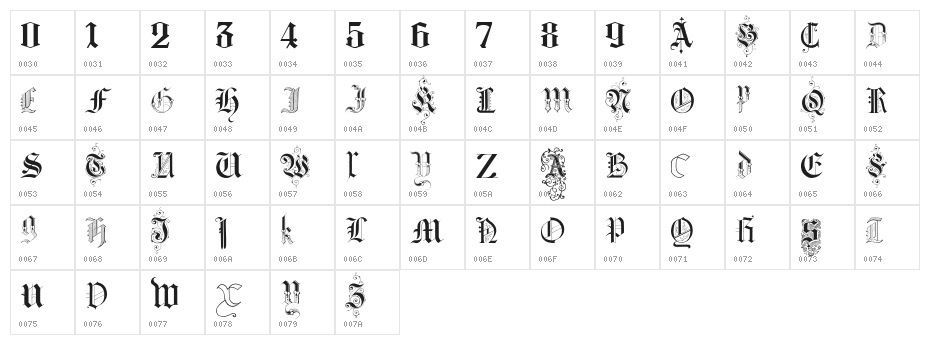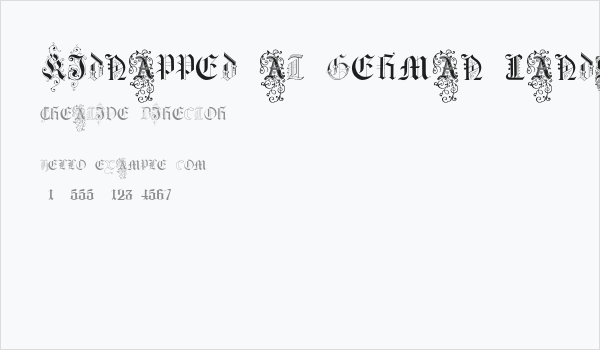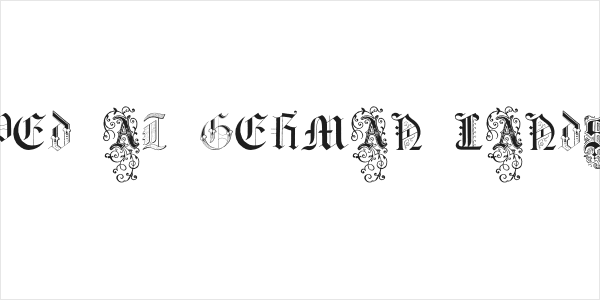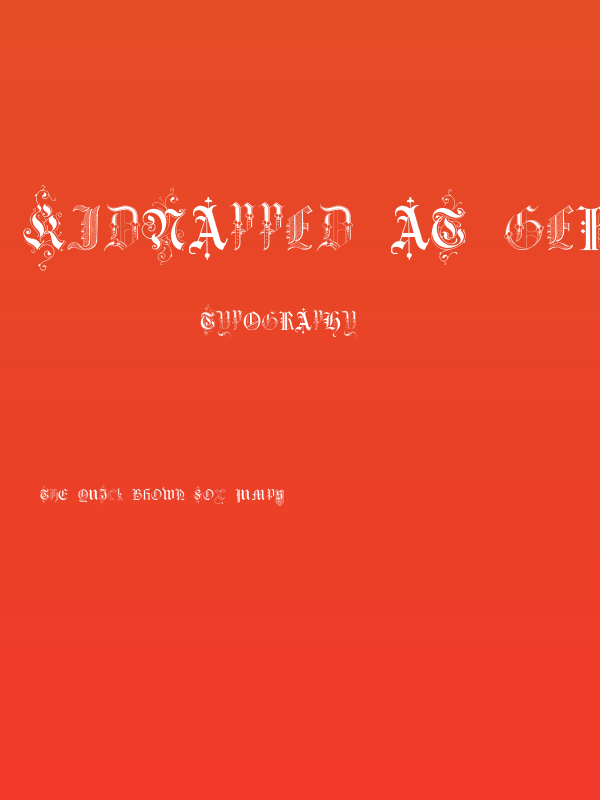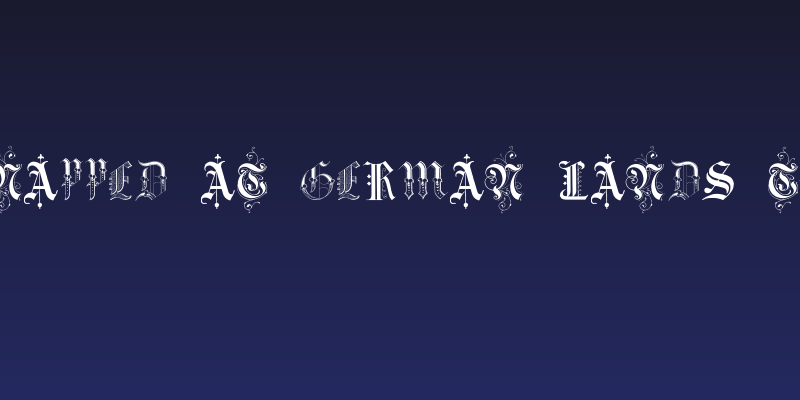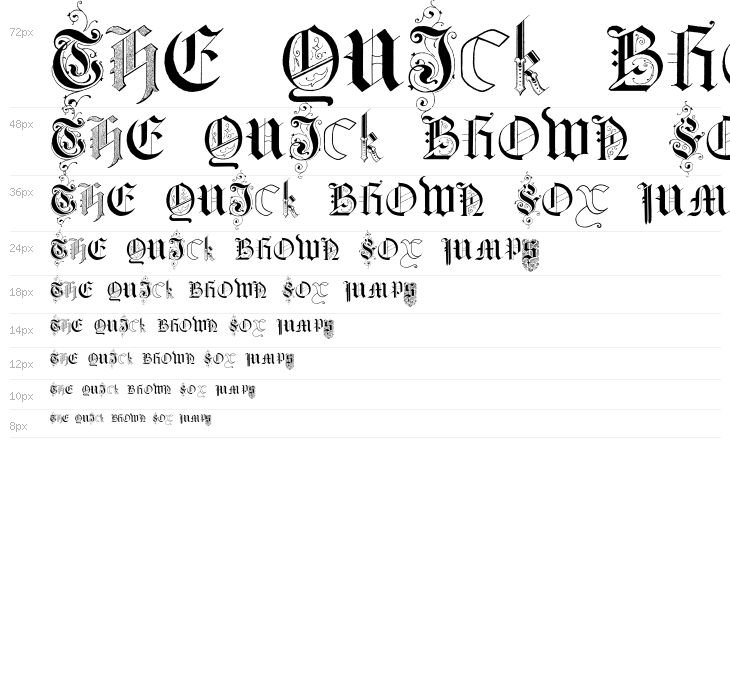
Kidnapped at German Lands Three Font
Kidnapped at German Lands Three Description
This font exudes a classic and ornate style reminiscent of traditional Blackletter typefaces. Each character is intricately designed with elaborate flourishes and embellishments, giving it a highly decorative appearance. The uppercase letters are bold and commanding, while the lowercase letters maintain the same level of detail and intricacy. The numbers are equally bold, featuring sharp angles and strong lines. This font is perfect for projects that require a historical or gothic aesthetic, such as vintage posters, book covers, or themed event invitations. Its unique style makes it stand out, capturing attention with its dramatic and artistic flair.
Overall StyleVintage
Use CaseLogos, Headlines, Decorative purposes
Proposed ProjectsIdeal for vintage posters, book covers, themed event invitations, and historical designs.